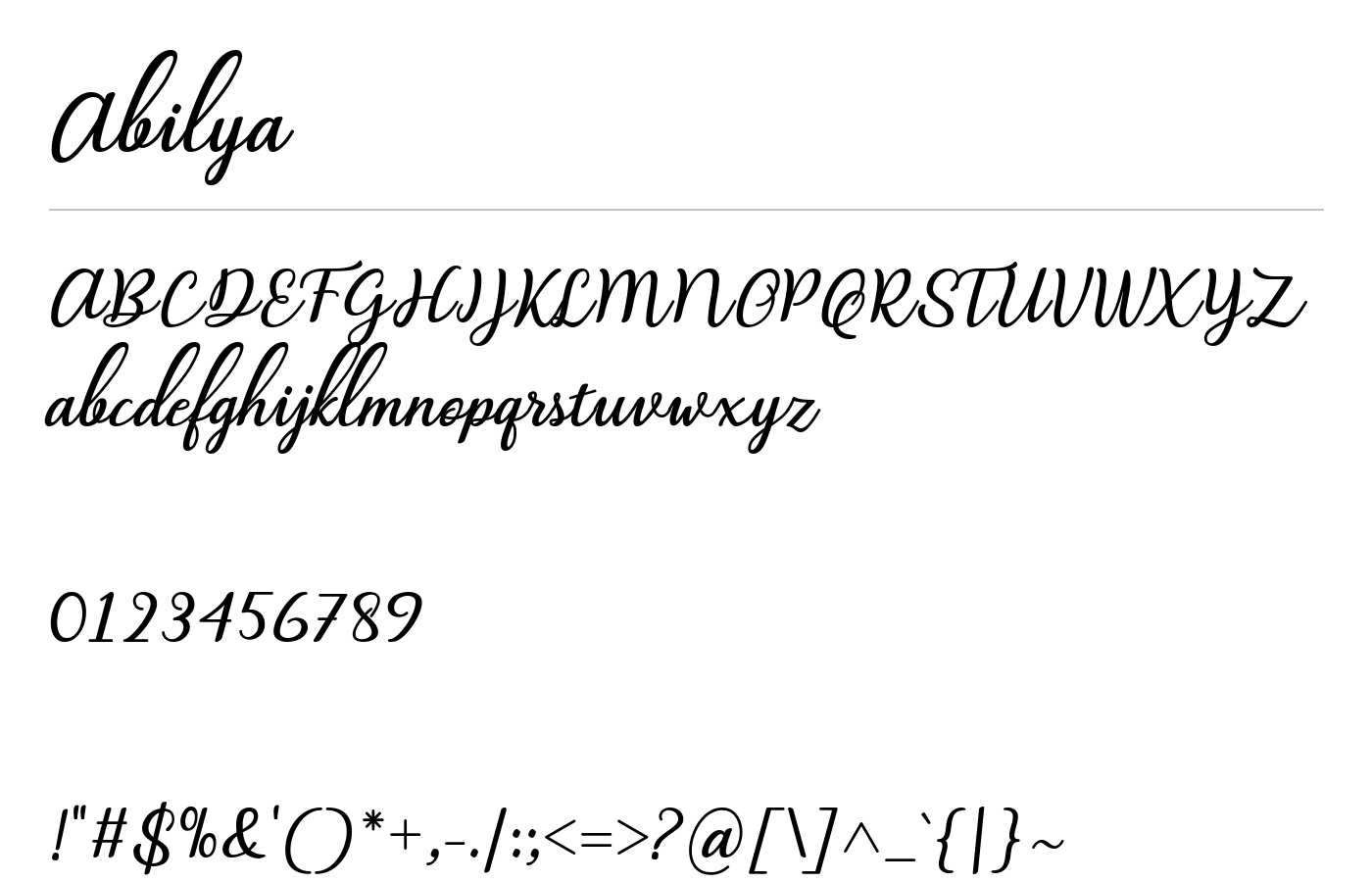
Abilya Font is an elegant, flowing script typeface with a smooth, handwritten feel. Its moderate contrast and delicate strokes create a graceful, refined look, making it perfect for invitations, branding, and editorial designs that seek a warm yet sophisticated touch. This font shines in settings that require a personal, stylish flair without sacrificing readability.
Abilya Font
About Abilya Font
| Font family | Abilya Font |
| Designer | Andrian Dehasta; Situjuh Nazara |